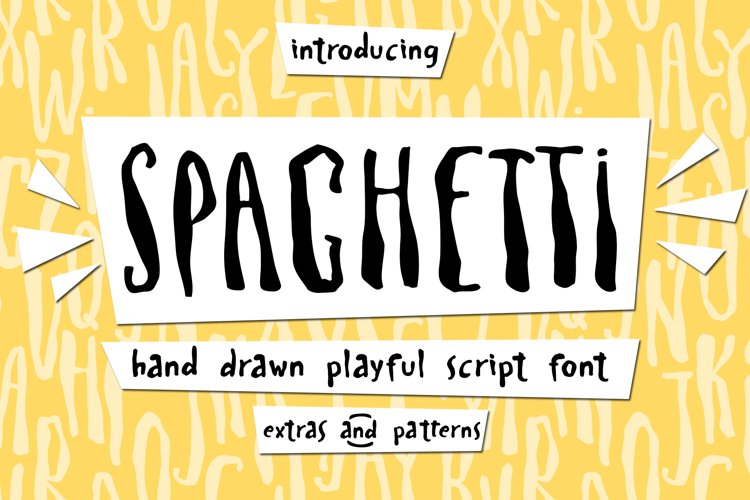
Spaghetti Cyrillic playful script font, Extras and Patterns
The Spaghetti playful cute font includes the main & alternative uppercase, and main & alternative lowercase, and the full set of double letters in an upper and lowercase, and a large range of numerals and punctuation. The Spaghetti font will be perfect for use in all your fun design projects be it logos, labels, packaging design, blog headlines. Also, it will look great on mugs, cards, kid's books headlines, or other typographic projects.
Spaghetti cute playful font contains the Cyrillic glyphs too.
The Cyrillic part of the font contains a full set of uppercase lowercase, and the Spaghetti Symbols is an additional font with 52 hand-drawn doodles, catchwords, arrows, and swashes and can help to make your design more original. Combine and arrange swashes and illustrations to create your own designs and make borders, frames, dividers, logos, and more (just use A-Z and a-z keys in the included Spaghetti Symbols font). A different symbol is assigned to every uppercase or lowercase standard character so you do not need graphics software just simply type the letter you need.
Multilingual Support for 31 languages: Latin glyphs for Afrikaans, Albanian, Basque, Bosnian, Catalan, Danish, Dutch, English, Estonian, Faroese, Filipino, Finnish, French, Galician, Indonesian, Irish, Italian, Malay, Norwegian Bokmål, Portuguese, Slovenian, Spanish, Swahili, Swedish, Turkish, Welsh, Zulu.
And Cyrillic glyphs support for Russian, Belorussian, Bulgarian, and Ukrainian languages.